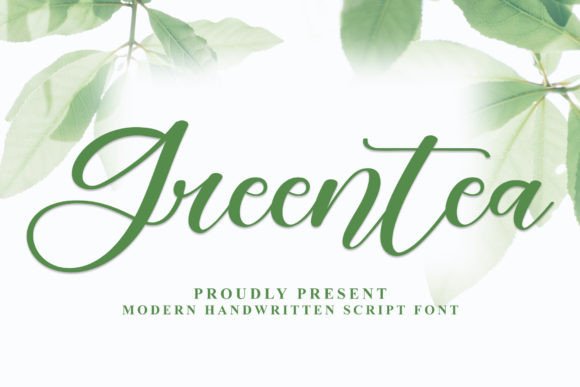
In the realm of typography, Greentea Font emerges as an extraordinary script font, a testament to the boundless creativity of PiPi Creative. Its exquisitely crafted characters, reminiscent of a gentle breeze whispering through rustling leaves, are destined to elevate your designs to unprecedented heights.
Embark on a captivating journey with Greentea Font, a font family meticulously designed to ignite your imagination. Its fluidity and grace lend an air of sophistication to any project, inviting you to explore the depths of your creativity. Whether you're a seasoned designer or a budding enthusiast, Greentea Font will undoubtedly cast a spellbinding aura over your work.
Immerse yourself in a world of endless possibilities with Greentea Font. Its versatility knows no bounds, effortlessly adapting to a myriad of design endeavors. From eye-catching logos and enchanting invitations to captivating posters and mesmerizing social media graphics, Greentea Font will seamlessly transform your ideas into tangible masterpieces.
Unleash the boundless potential of your artistic spirit with Greentea Font. Its captivating allure will breathe life into your designs, leaving an indelible mark on the minds of your audience. Prepare to be enthralled by the beauty and grace that Greentea Font effortlessly exudes, transforming your creative visions into extraordinary realities.